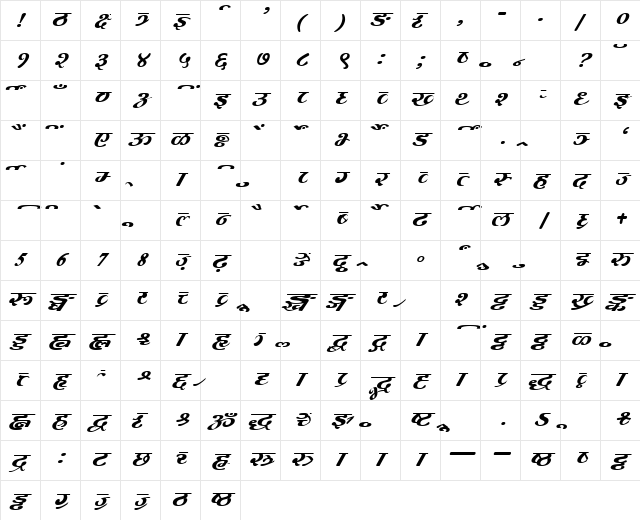
AkrutiDevKailasMedium Italic Free Font
AkrutiDevKailasMedium Italic
AkrutiDevKailasMedium Family
AkrutiDevKailasMedium Italic
Design Context for AkrutiDevKailasMedium
AkrutiDevKailasMedium is a composed and adaptable typeface that performs quietly and consistently across a wide range of design contexts. The slanted form adds forward momentum and visual energy.
Pro Tip: Use AkrutiDevKailasMedium for emphasis, pull quotes, and subheadings where its slanted energy can add rhythm to the layout.